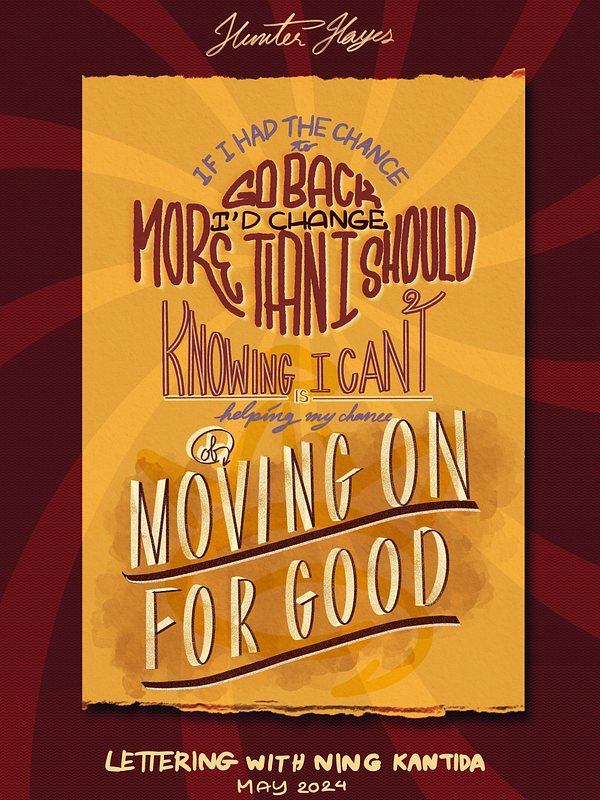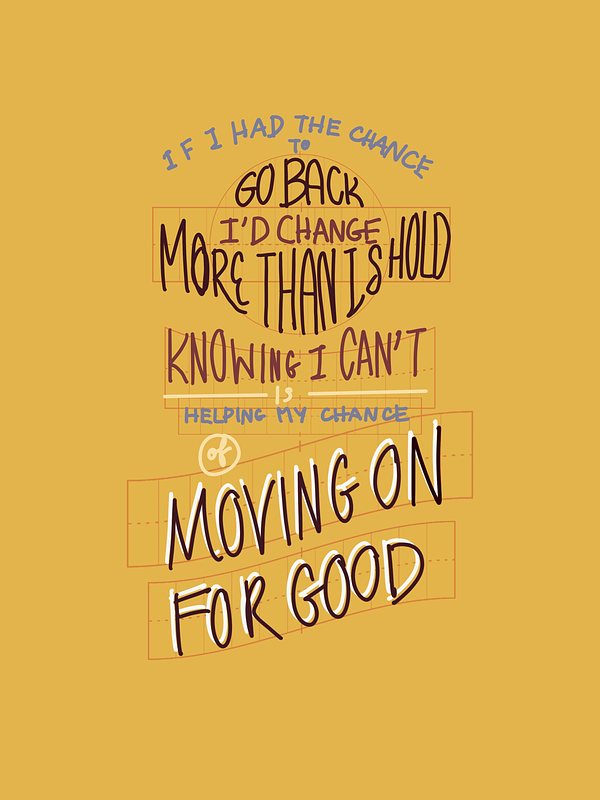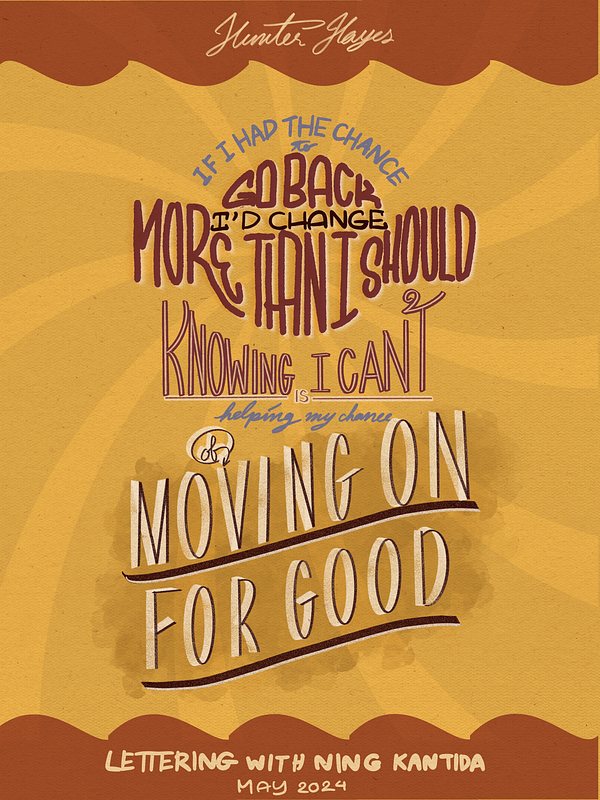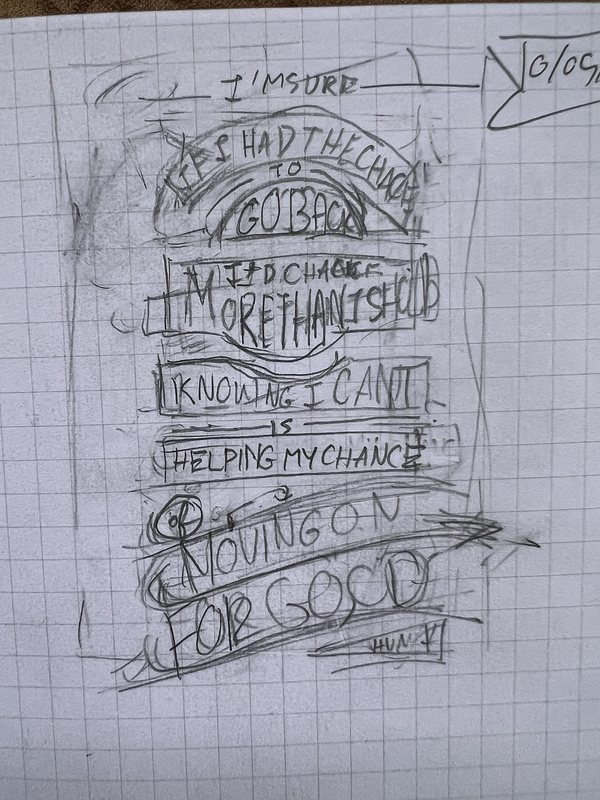
The Lyrics Lettering 00012-In A Song by Hunter Hayes
The Work
My design inspired by In A Song by Hunter Hayes
The Inspiration
Today's design is inspired by Hunter Hayes's song "In A Song". This song is featured in my playlist "These Songs Saved My Life" because it genuinely saved me during a tough time.  Listening to it gave me the sense of hope to keep going despite the pain and emotions I was feeling.
You sometimes wish you could change the past, but in reality, doing so would only mess things up further. So, not being able to undo what's done is actually a blessing, as it helps you move forward for good. There are no second chances or do-overs; you must keep moving forward, even if it means a different path than you had planned. It's oddly reassuring, and it helped me through a tough spot. So, I decided to design something centered around these special lyrics.
Well I'm sure if I had the chance to go back
I'd change more than I should
But knowing I can't is helping my chances
Of moving on for good
Now I'm not saying there won't be too many lonely nights
But the songs that I choose getting over you
Help me make it out alive It's alright, this goodbye
Won’t hurt me for too long
I’ll be fine on my own
It's gonna take some time
But I know that I
I can find where I belong
And I’ll find it in a song
The Process
I originally had the idea of utilizing the arrows to represent the timeline, but it would only confuse people, so I decided to go with a strict composition instead.
This type of composition was new to me, but I enjoyed it.
After the first draft, the design felt empty, so I added decorations, which transformed it into something I love. The final version kinda reminded me of a vintage circus ticket or something. I am pleased with how it turned out.